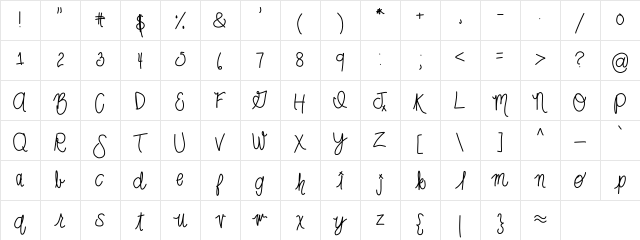
Complete HomegirlJessa Medium glyph index. Displaying only characters natively supported by HomegirlJessa Medium font.
HomegirlJessa is a composed and adaptable typeface that performs quietly and consistently across a wide range of design contexts.